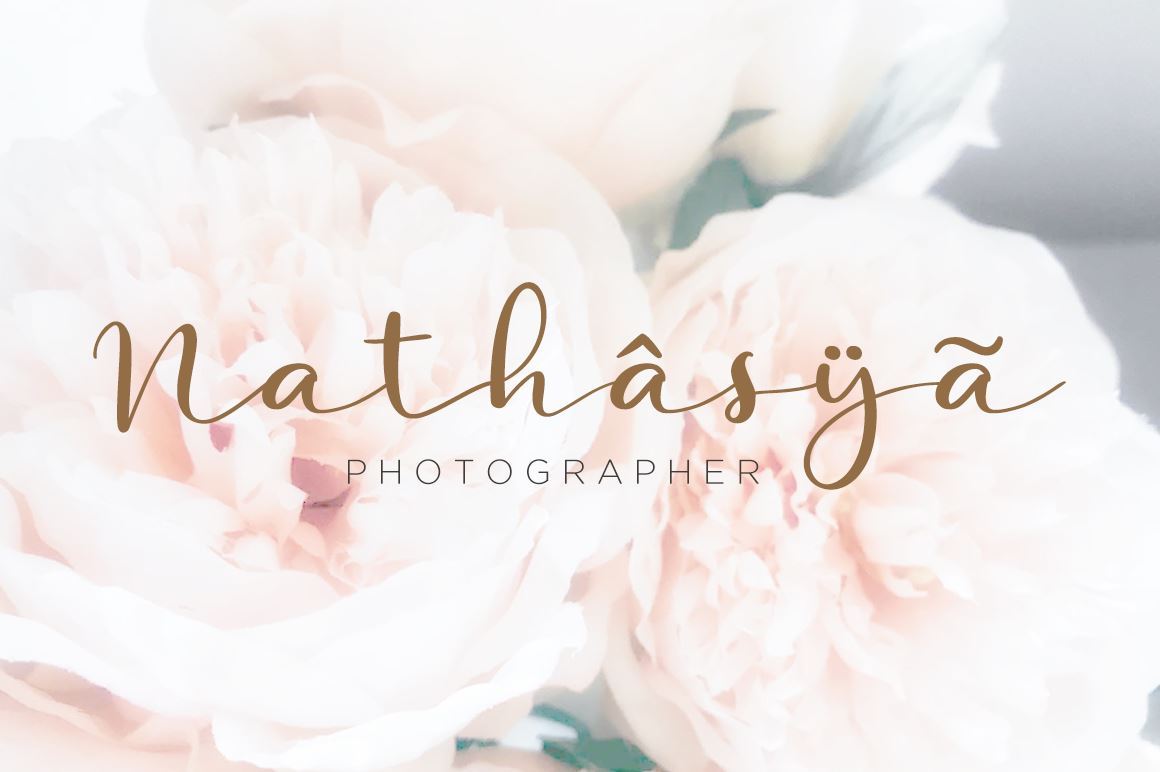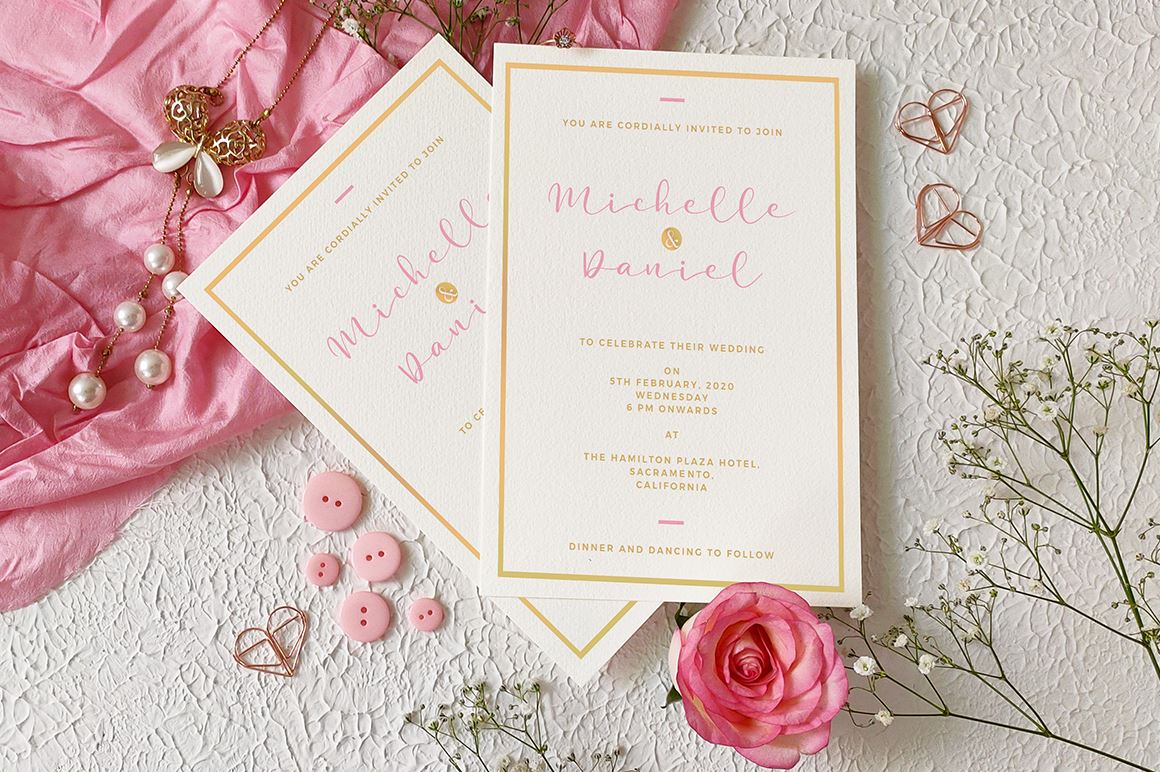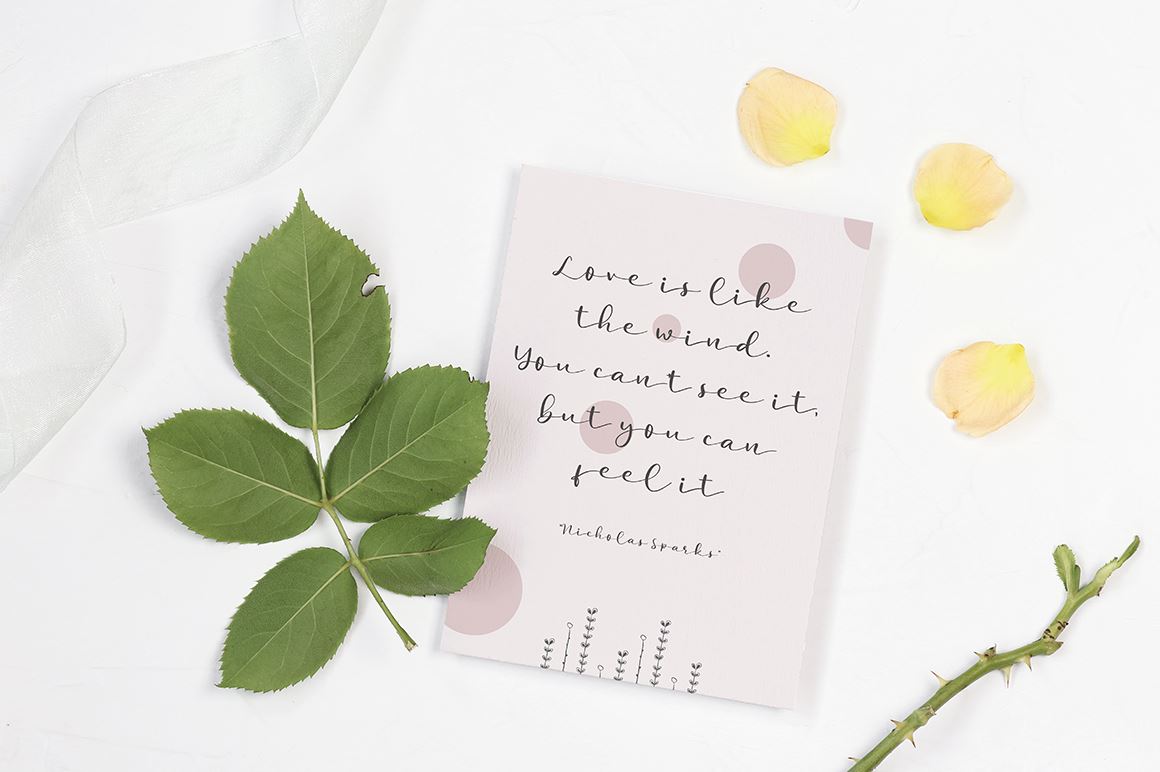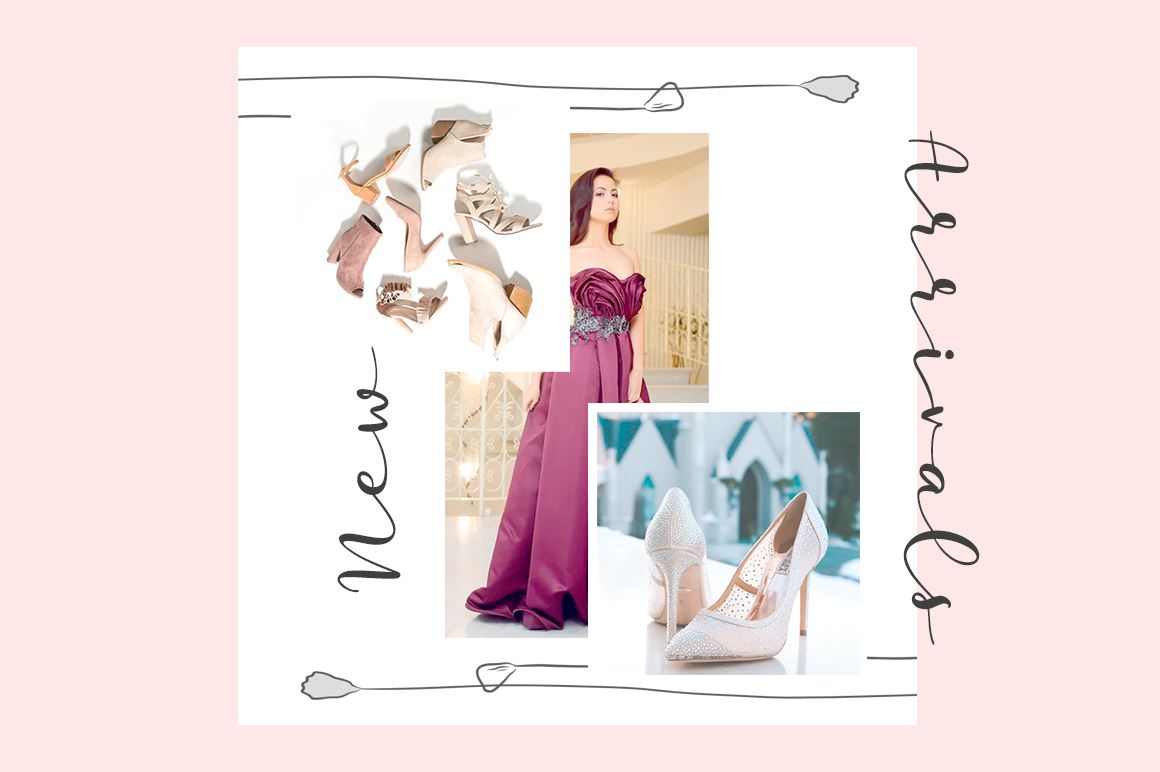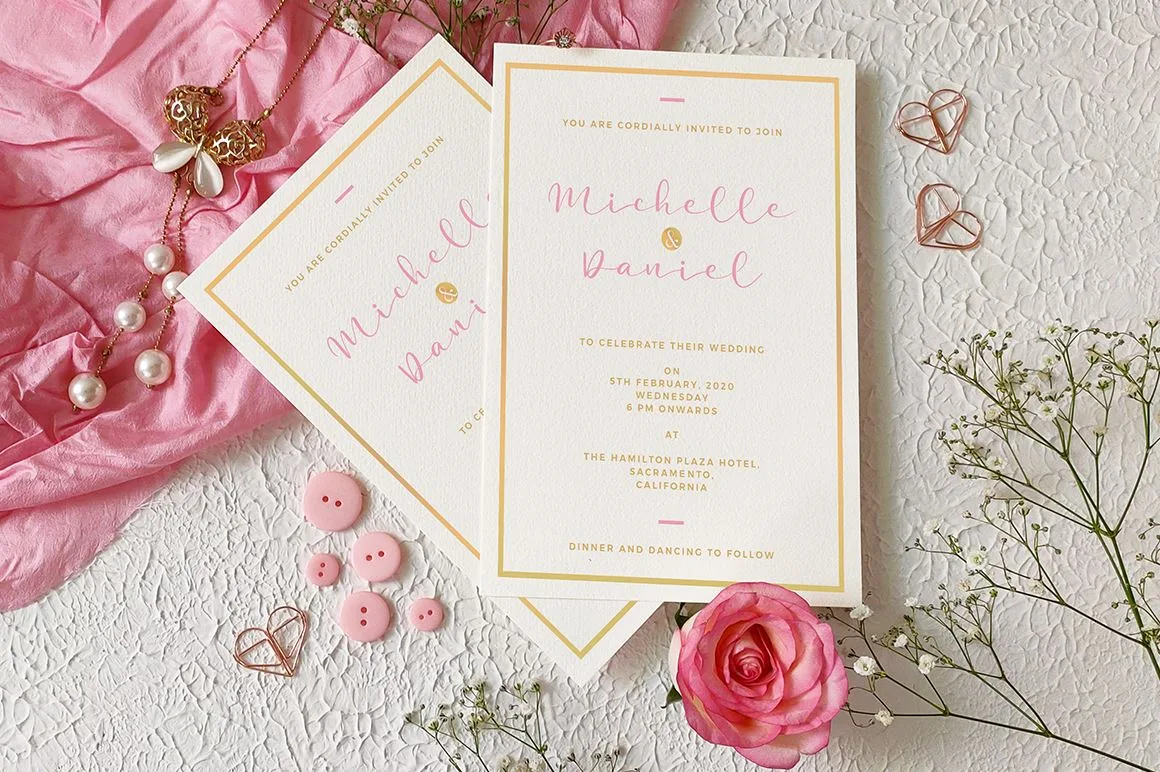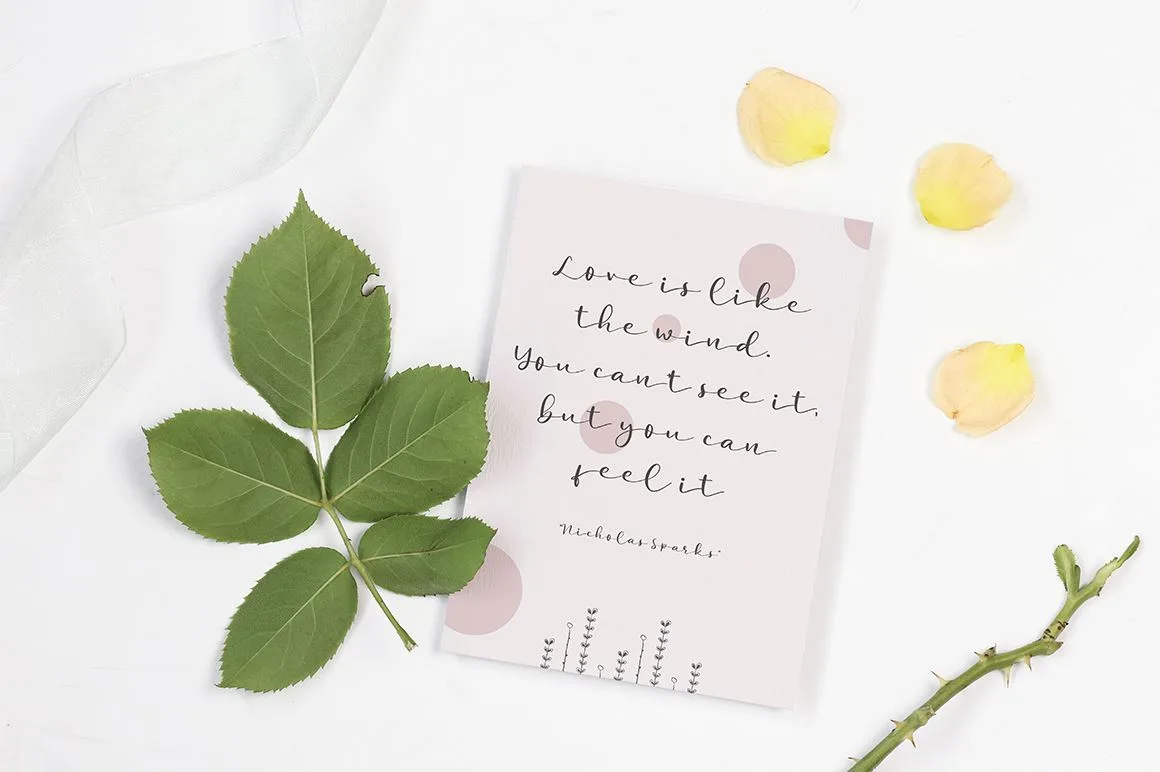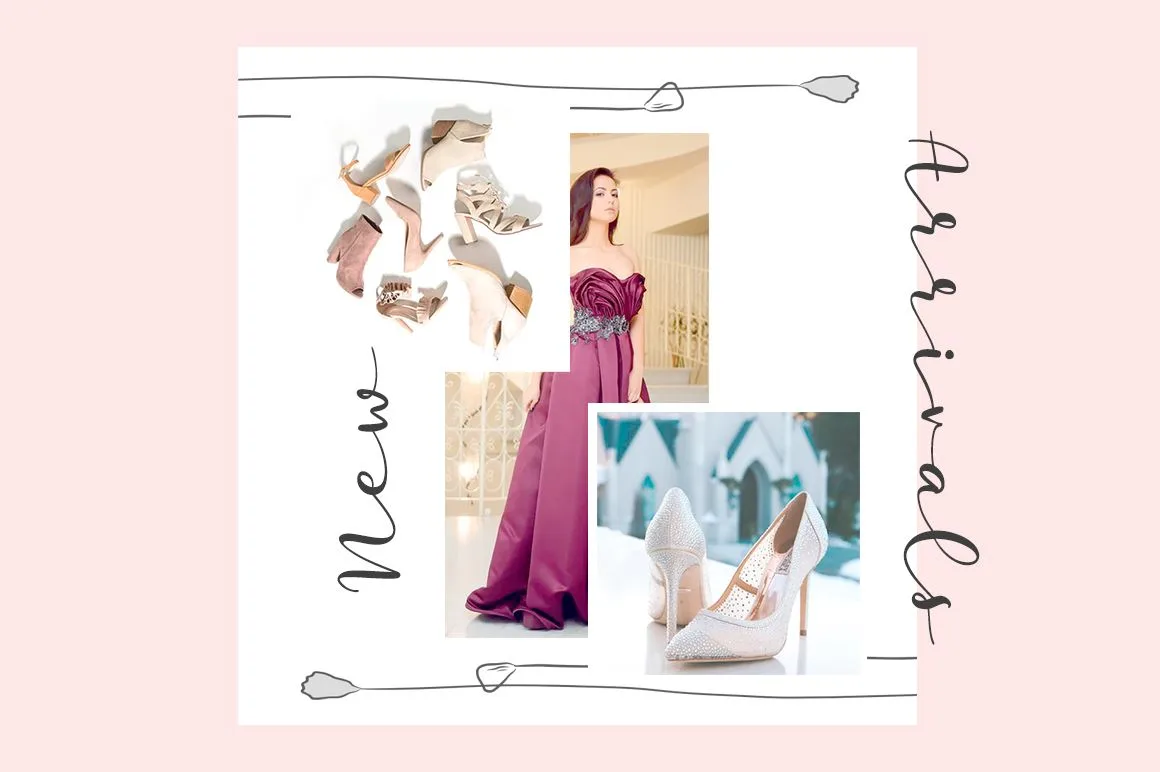
A handwritten font with bouncy script style Specifics: Cute and pretty style Modern Script You will receive otf, ttf files with your purchased Numerical, Punctuation, Multi language included Happy Designing!